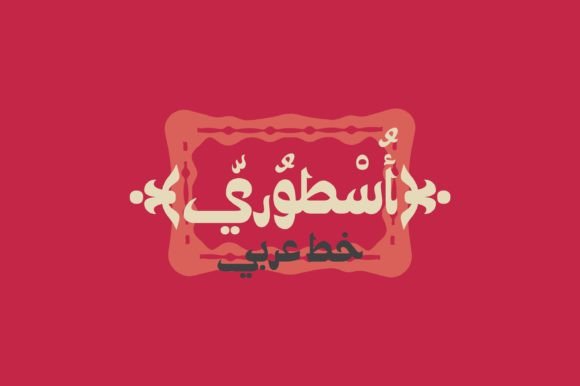
Immerse yourself in the captivating allure of Ostouri, an Arabic display font that weaves intellect with imagination in a harmonious dance of letterforms. Its intricate design embodies the essence of mystery and beauty, making it the perfect font for narrative content titling, branding, and visual advertising.
With its elegant curves and sweeping strokes, Ostouri captures the essence of Arabic typography, evoking a sense of wonder and enchantment. Each character is a work of art, carefully crafted to convey a story of its own. Whether you're creating logos, designing posters, or crafting social media graphics, Ostouri's versatility and charm will leave a lasting impression.
Transport your audience to a world of captivating storytelling with Ostouri's enchanting glyphs. Its unique ligatures and swashes add a touch of elegance and sophistication, while its carefully crafted kerning ensures optimal readability. Experience the magic of Ostouri and let your creativity soar.
Step into the realm of Ostouri, where imagination knows no bounds. This font is a testament to the power of Arabic calligraphy, a fusion of art and language that speaks to the soul. With Ostouri, you hold the key to unlocking a world of endless creative possibilities.
Whether you're a seasoned designer or just starting your creative journey, Ostouri is the perfect font to elevate your projects. Its intuitive design and user-friendly interface make it accessible to all skill levels. Embrace the boundless potential of Ostouri and watch your ideas come to life in a symphony of visual delight.